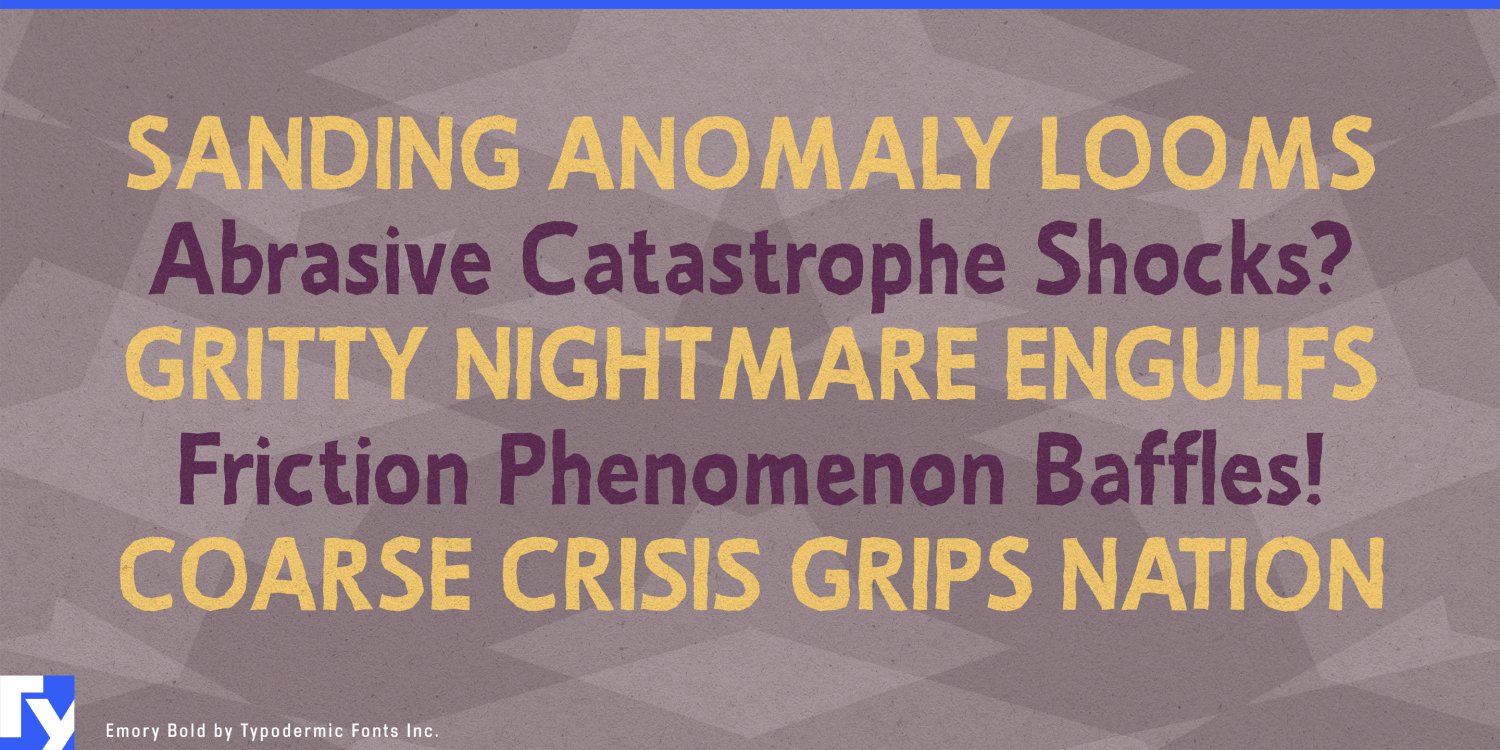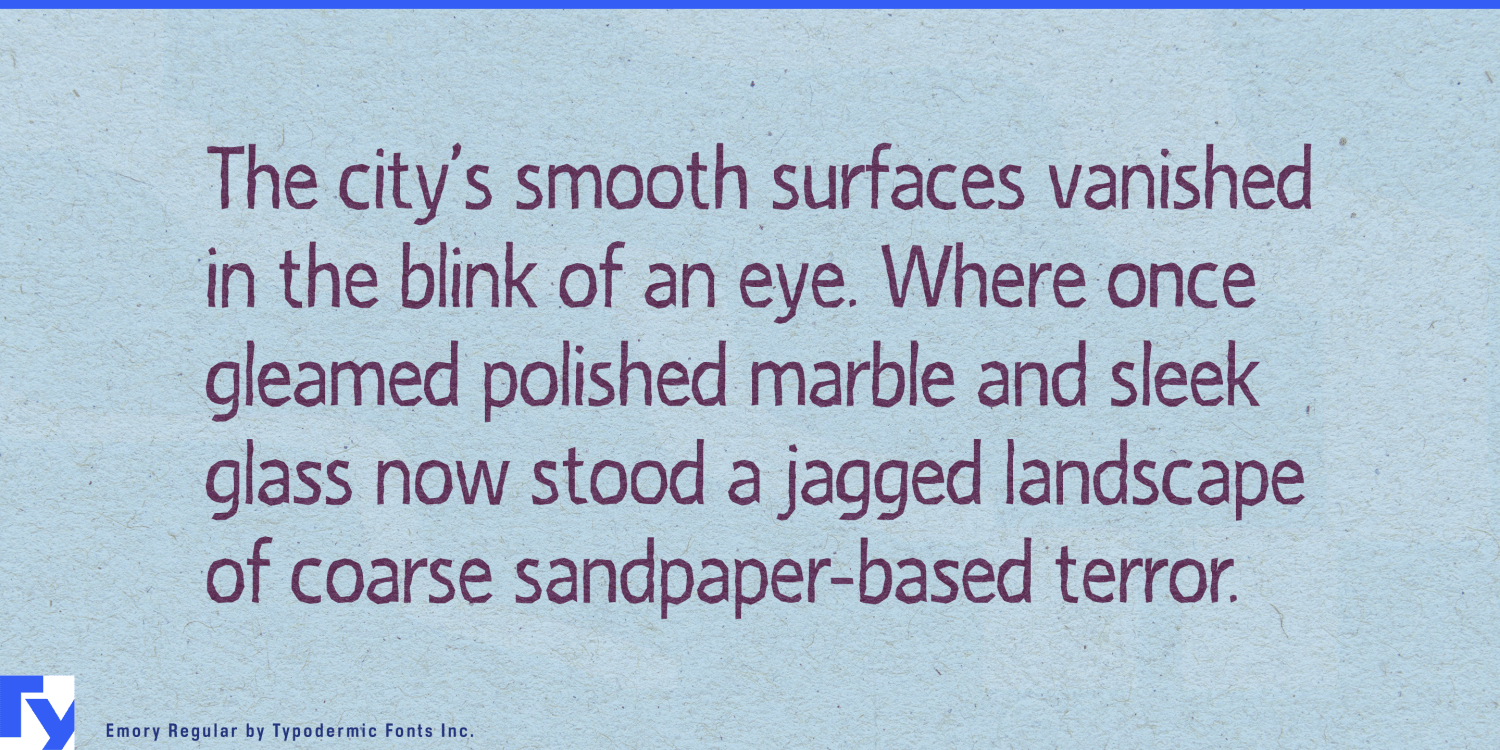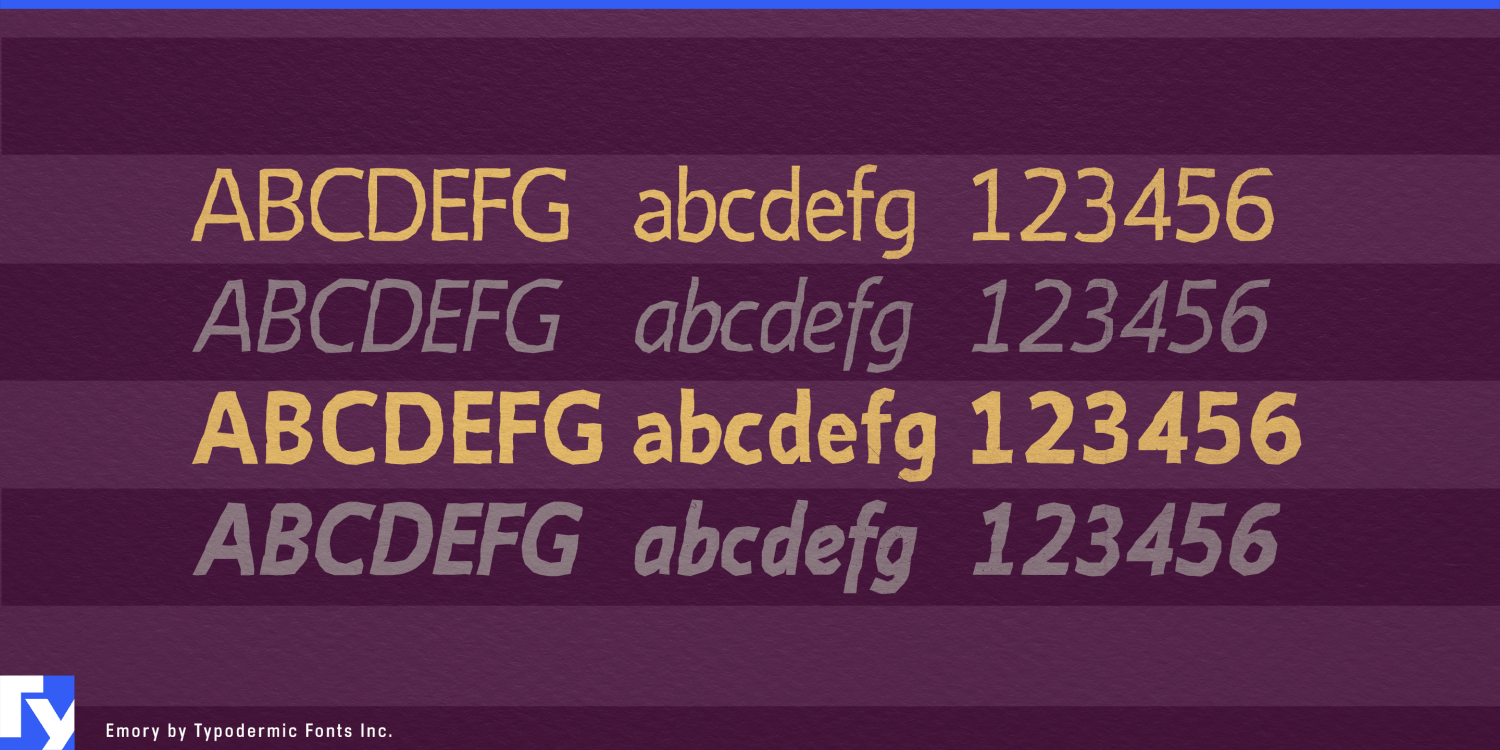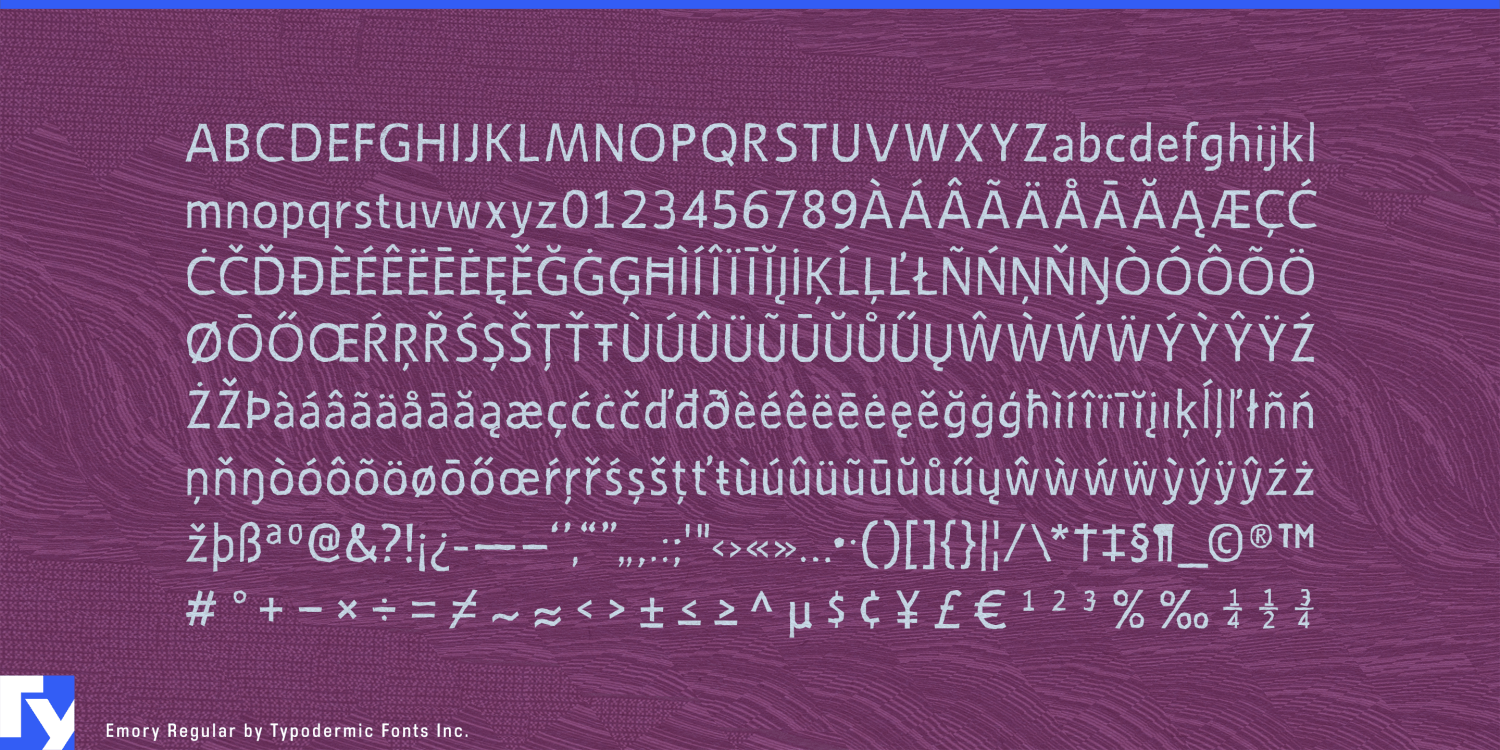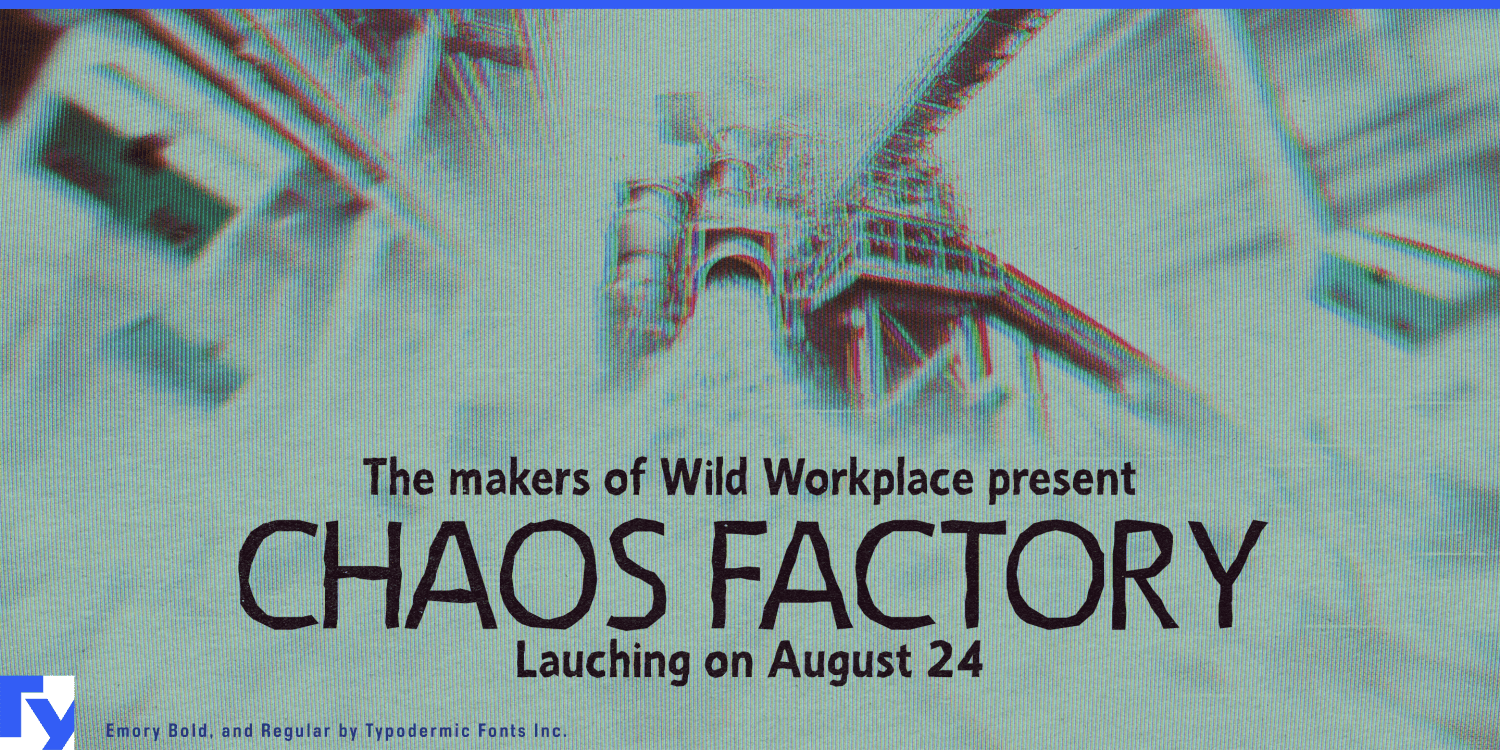
About Emory
Imagine the tactile sensation of sandpaper translated into typography. That’s Emory—a typeface that doesn’t just communicate, it grabs hold. Emory is for designers who want their words to have presence. Each character embodies the coarse,…